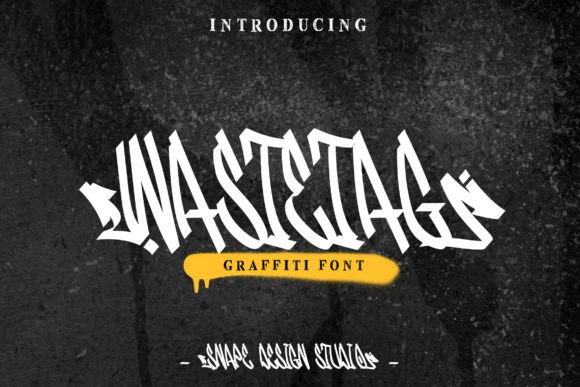
Wastetag Font: Urban Style for Handmade Products
Finding the perfect typeface for street-style crafts can be a challenge. You want something that feels authentic and edgy without sacrificing the readability your customers need. Wastetag is a display font that bridges this gap beautifully. Inspired by typical street art calligraphy, this typeface brings an urban, hip energy to physical products and digital downloads alike. For makers who create stickers, apparel, signage, or printable wall art, having a reliable graffiti-style font in your toolkit is essential for capturing that specific aesthetic.
Unlike generic grunge fonts that can look messy or illegible at small sizes, Wastetag maintains a structured flow. The characters are designed with the rhythm of hand-painted tags but refined for commercial application. This balance makes it incredibly useful for small business owners who need their branding to look cool yet professional. Whether you are designing a new line of vinyl decals or updating your shop’s packaging, this font offers the visual punch required to stand out in a crowded handmade marketplace.
Elevating Physical Products and Packaging
The true test of any creative font is how it performs on tangible goods. Wastetag shines when applied to items where texture and attitude matter. For candle makers, this typeface works exceptionally well on warning labels or scent names that target a younger, trend-conscious demographic. Instead of a standard serif font, using Wastetag for a "Midnight City" or "Concrete Rain" scent name instantly communicates the vibe of the product before the customer even smells it.
Apparel creators will also find significant value here. When designing t-shirts, tote bags, or hoodies, legibility from a distance is key. The bold strokes of Wastetag hold up well during screen printing and heat transfer vinyl application. It is ideal for short, impactful phrases or single-word statements. Because the letterforms have distinct shapes, they remain recognizable even when printed on textured fabrics or distressed materials. This makes it a go-to choice for streetwear brands or festival merchandise where the design needs to feel organic and handmade rather than mass-produced.
Packaging is another area where this display font adds perceived value. If you sell jewelry, accessories, or art prints, using Wastetag on your thank-you cards, box sleeves, or tissue paper stamps creates a cohesive brand identity. It signals to the buyer that every aspect of your business has been curated with intention. The urban charm suggests a modern, artistic brand personality that resonates with buyers looking for unique, non-corporate gifts.
Designing Readable Stickers and Labels
Sticker makers know that intricate details can get lost during the cutting process. While Wastetag is inspired by complex street art, its simplified geometry makes it surprisingly friendly for Cricut and Silhouette users. When creating die-cut stickers, opt for shorter words or names to ensure the weeding process remains manageable. The font’s inherent weight provides enough surface area for adhesive backing, reducing the risk of peeling edges that often plague thinner script fonts.
For product labels, consider the hierarchy of information. Wastetag is best reserved for the product name or the primary headline. Pair it with a clean sans serif font for ingredients, instructions, or pricing. This contrast not only improves readability but also highlights the artistic nature of the display font. A cluttered label confuses customers, but a label that uses Wastetag for impact and a simple typeface for utility strikes the perfect balance between style and function.
Digital Downloads and Printable Projects
Crafters selling digital assets face different challenges than those shipping physical goods. Your font choice must translate perfectly across screens and home printers. Wastetag is excellent for printable wall art, particularly in genres like urban nursery decor, teen room aesthetics, or motivational posters. The graffiti influence adds a layer of authenticity that standard handwritten fonts often lack, making your digital products feel more exclusive and trendy.
When creating templates for social media graphics or party invitations, versatility is crucial. This typeface works wonderfully for birthday parties, graduation announcements, or gaming stream overlays. Its energetic style captures attention in scrolling feeds, which is vital for driving traffic to your shop. For invitation designers, Wastetag serves as a striking header for event titles. Just remember to keep body text in a highly legible serif or sans serif font to ensure guests can easily read the date, time, and location details.
- Wall Art: Use for bold affirmations or city-themed quotes in high-resolution PDF formats.
- Party Stationery: Perfect for headers on welcome signs, cupcake toppers, and favor tags.
- Social Media Kits: Create Instagram story templates or Pinterest pins that pop with urban flair.
- Planner Accessories: Design dashboard covers or monthly divider tabs for teen and student planners.
Strategic Font Pairing for Makers
To maximize the commercial appeal of Wastetag, thoughtful font pairing is necessary. Because this typeface has so much personality, it should generally be the star of the show. Pairing it with another decorative font can create visual chaos. Instead, anchor it with neutral partners. A geometric sans serif font provides a modern, clean backdrop that lets the graffiti elements shine without competition. This combination is particularly effective for logo design and brand identity kits.
If you prefer a softer contrast, try pairing Wastetag with a minimalist serif font. The sharpness of the serifs complements the fluid curves of the graffiti style, creating a sophisticated "high-low" mix. This approach works well for boutique branding or wedding stationery that aims for an alternative, non-traditional look. Always test your pairings at various sizes to ensure they maintain harmony across different mediums, from business cards to large-format banners.
Technical Considerations and Licensing
Before incorporating Wastetag into your product line, review the technical specifications and licensing terms. Check if the download includes alternate characters, ligatures, or swashes. These extras allow you to customize the typography so no two designs look identical, adding a bespoke quality to your work. Multilingual support is also worth verifying if you plan to sell internationally or create bilingual signage.
Licensing is perhaps the most critical factor for sellers. Ensure you understand the commercial use rights associated with this premium font. Most licenses cover physical end products and limited digital printables, but restrictions may apply to embedding fonts in editable templates or selling SVG files where the font itself is the primary value. Clarifying these terms protects your business and respects the type designer’s intellectual property. When used correctly within license bounds, Wastetag becomes a powerful asset for building a distinctive, profitable craft brand.
Ultimately, the success of any project lies in execution. Mockup your designs before listing them to see how Wastetag interacts with colors, textures, and layouts. Ask yourself if the text is readable at thumbnail size and if the style aligns with your target audience's expectations. By treating this display font as a strategic design element rather than just a decoration, you elevate the quality of your entire collection. Whether you are cutting vinyl for laptop lids or formatting digital planners, Wastetag provides the authentic urban edge that today’s makers and buyers are searching for.